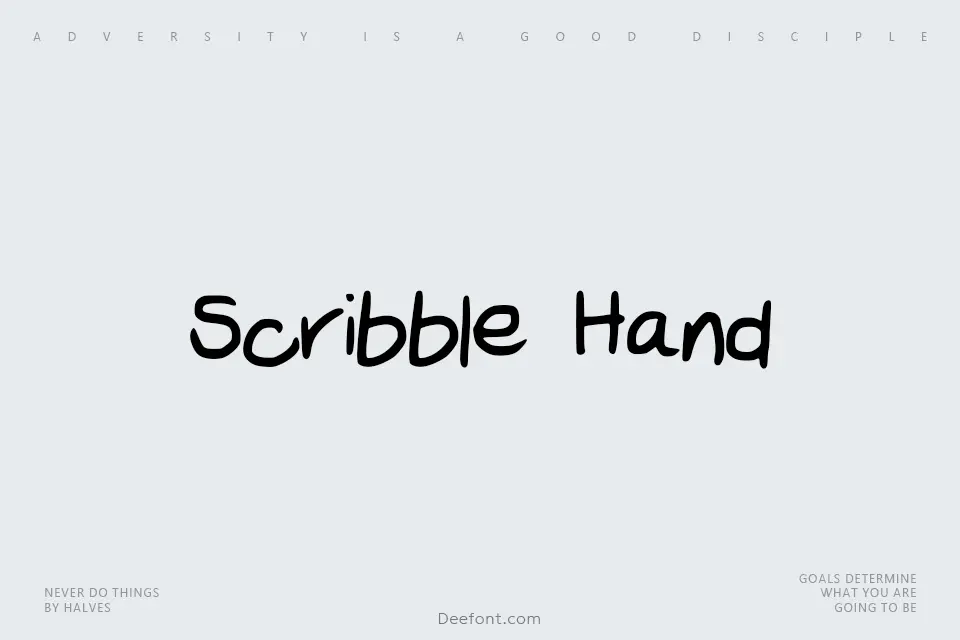
Scribble Hand Font
Scribble Hand is a distinctive handwritten script font that captures the essence of casual, hand-drawn lettering with loose, organic strokes and imperfect character forms. The typeface features 143 glyphs including uppercase and lowercase letters, numerals, and punctuation marks, designed to evoke a natural pen-and-paper aesthetic. Its sketchy, informal appearance makes it ideal for creative display applications such as poster headlines, branding projects, children’s materials, social media graphics, greeting cards, and informal signage. The font’s playful yet readable letterforms work exceptionally well in contexts requiring a friendly, approachable tone, from party invitations and DIY craft projects to artistic illustrations and casual editorial designs.